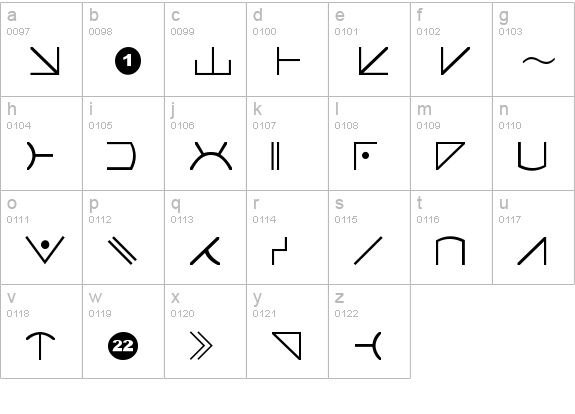
Futurama Alien Alphabet Two Font Details
The Futurama Alien Alphabet Two font is a fantastic and unique typeface that will transport you to the futuristic world of the hit animated TV show. This font features intricate alien symbols inspired by the show's imaginative universe, allowing you to add a touch of otherworldly flair to your designs. The exotic and mysterious glyphs will make your projects stand out and captivate viewers with their futuristic charm. Best of all, the Futurama Alien Alphabet Two font is available for free download at FontsMarket.com. You can easily access this captivating typeface and use it in your personal and commercial projects without any cost. Embrace the future and infuse your designs with a touch of intergalactic style with the Futurama Alien Alphabet Two font today!